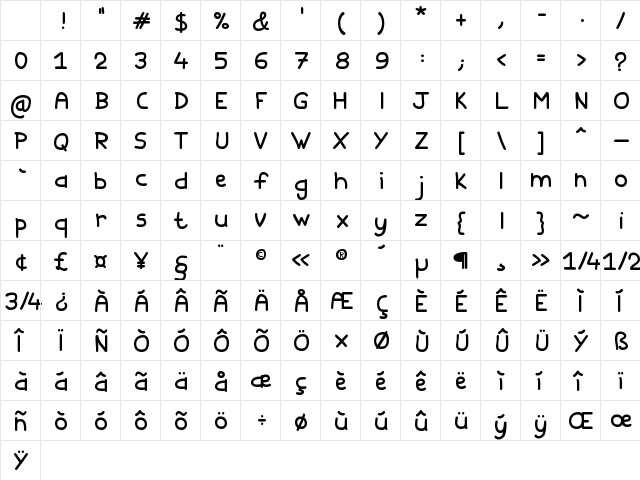
Complete Family & Friends Regular glyph index. Displaying only characters natively supported by Family & Friends Regular font.
Family & Friends is a composed and adaptable typeface that performs quietly and consistently across a wide range of design contexts.